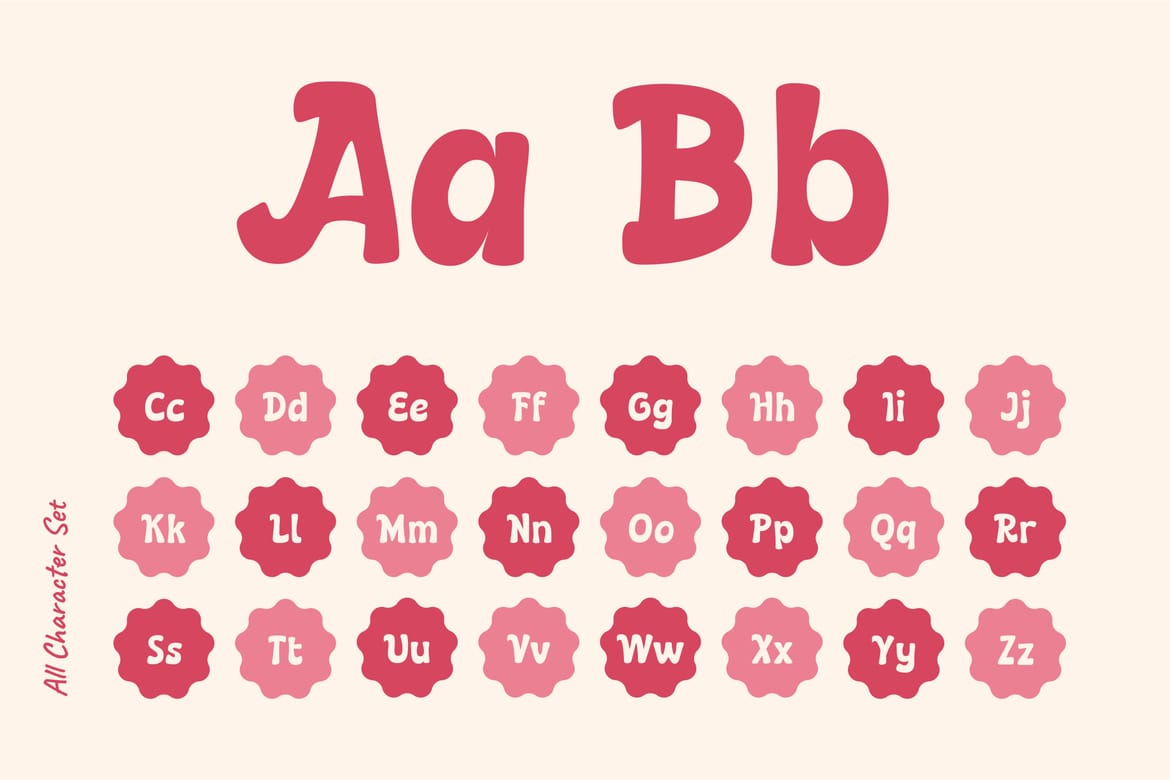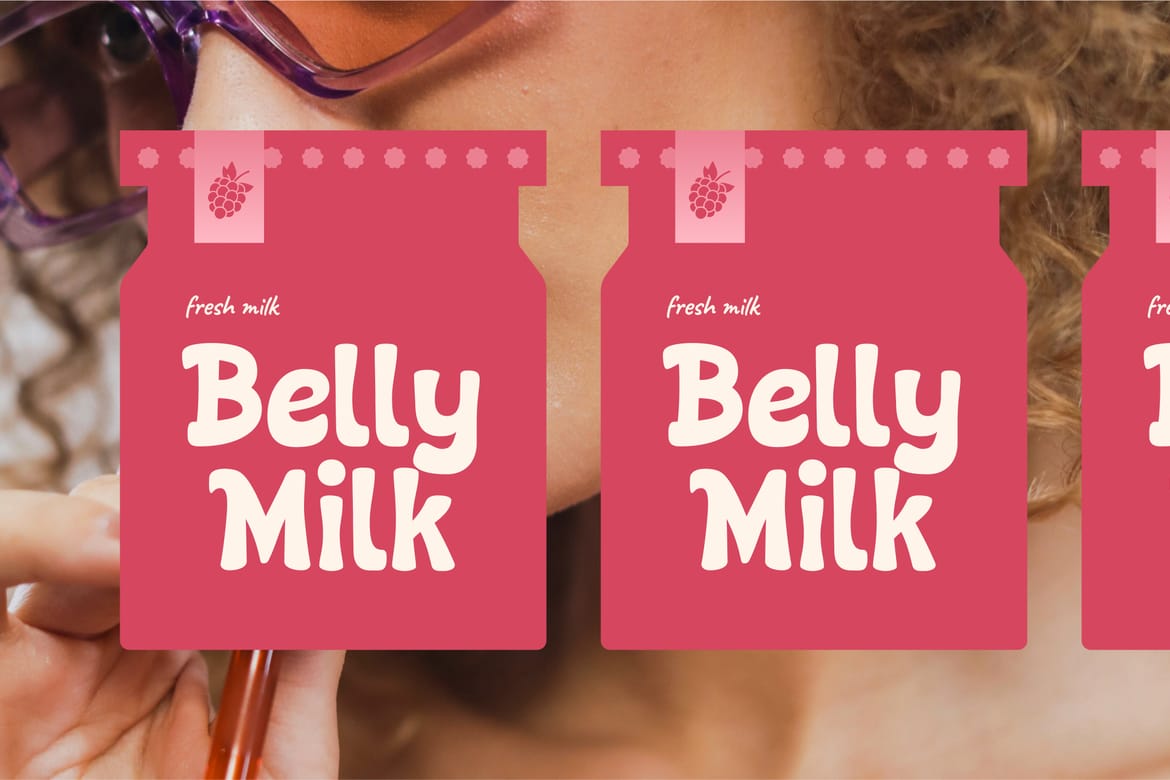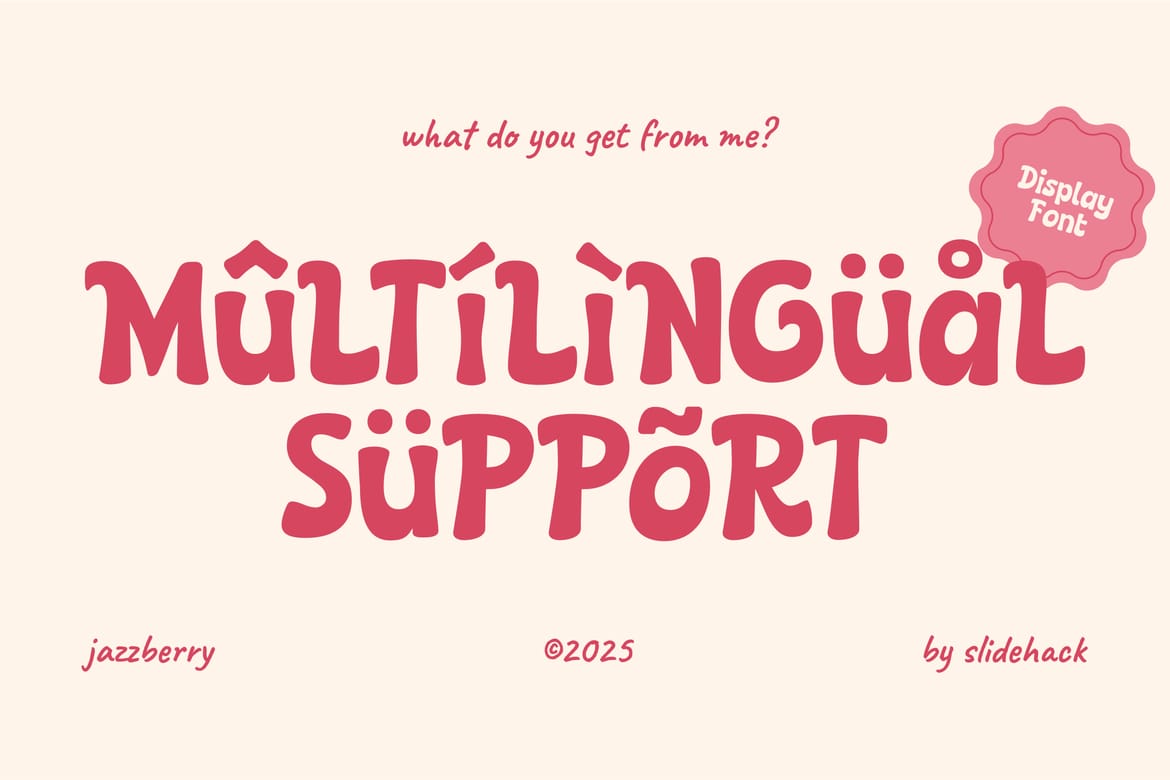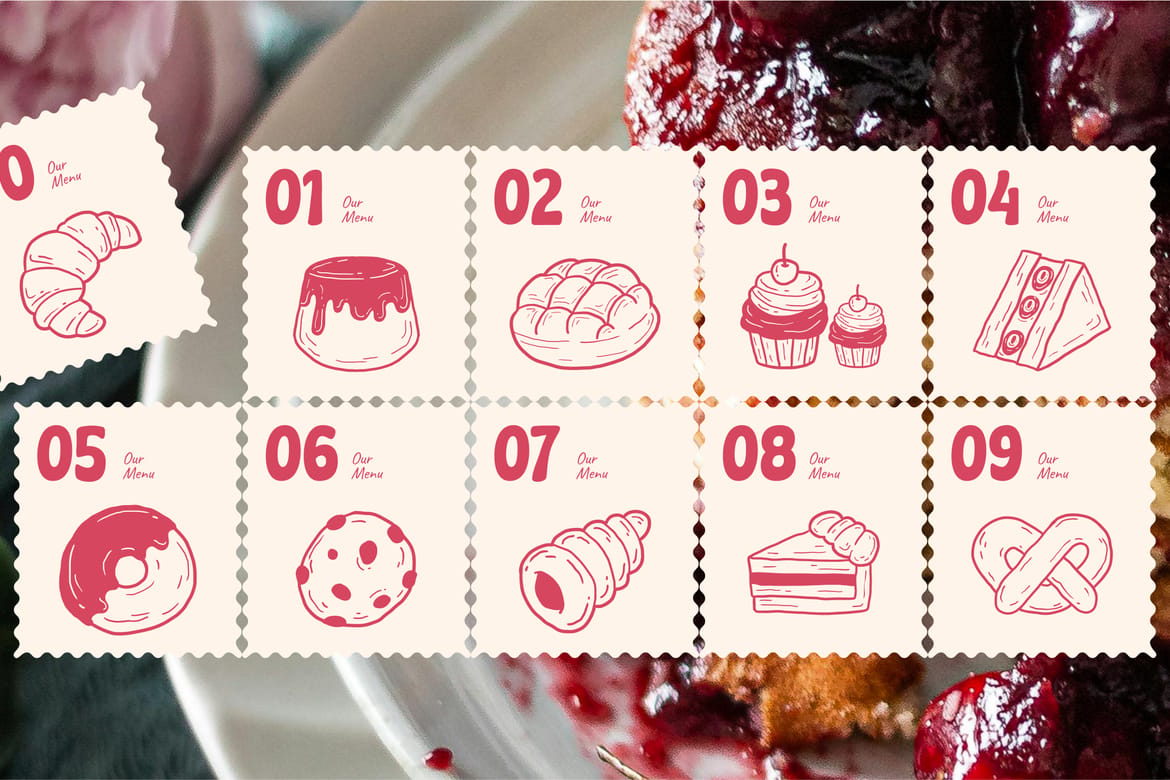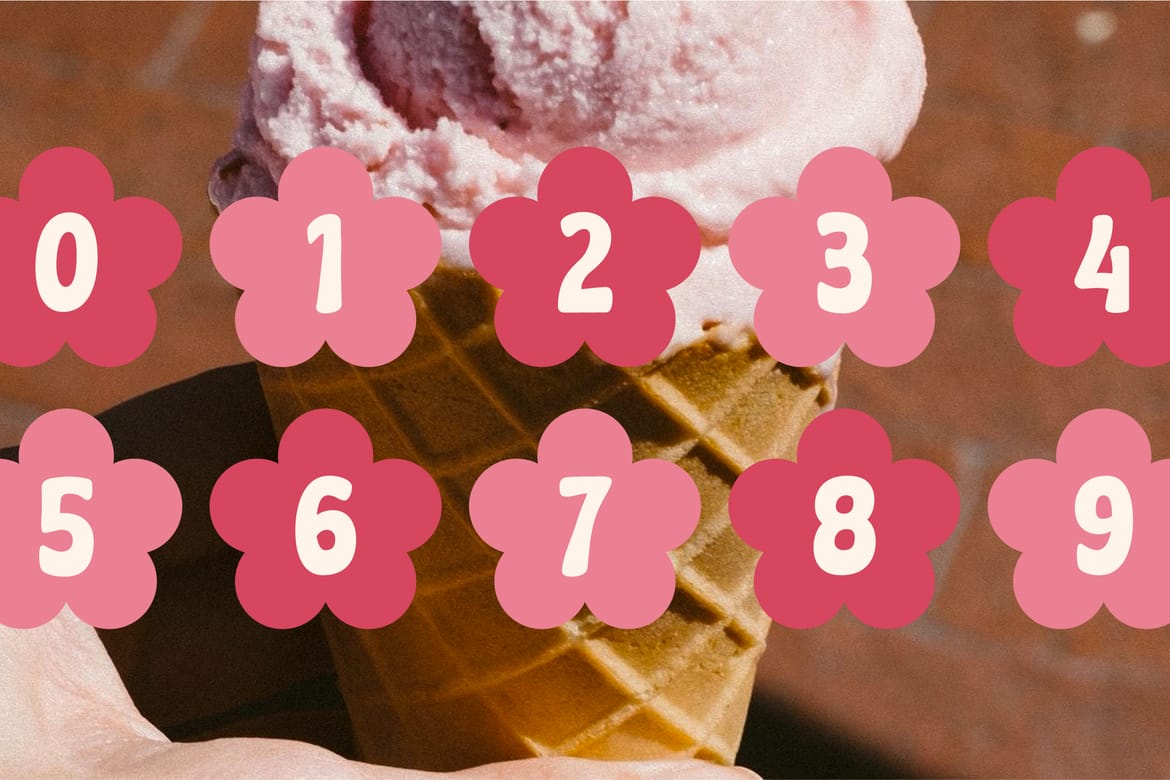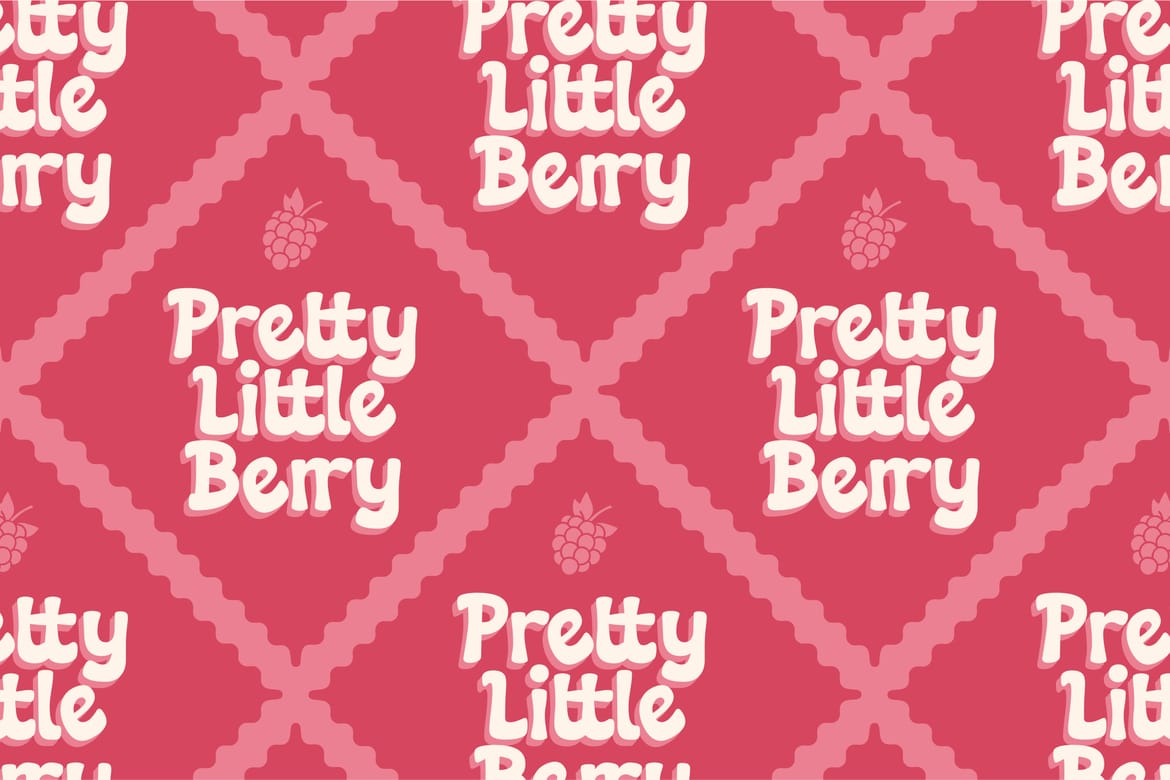
Jazzberry is a playful, bold display font perfect for branding, packaging, posters, and social media designs. With its fun curves and friendly vibe, it’s ideal for creative projects seeking a vibrant, modern touch. Perfect for logos, titles, invitations, and eye-catching headlines that stand out in any design.
Playful, chunky, retro-inspired style
Perfect for dessert brands, kids products, and cheerful packaging
Soft curves and bubbly shapes that create a warm, memorable personality